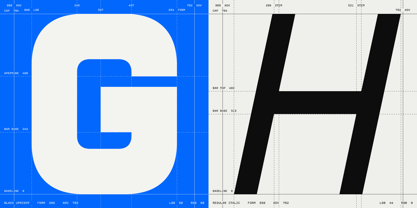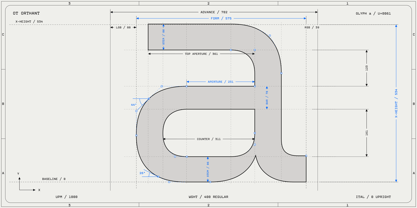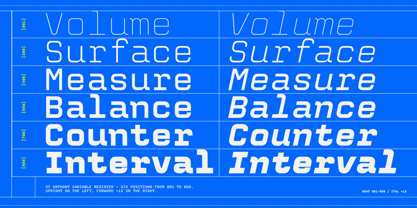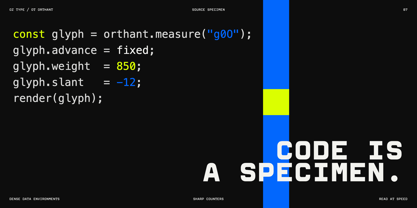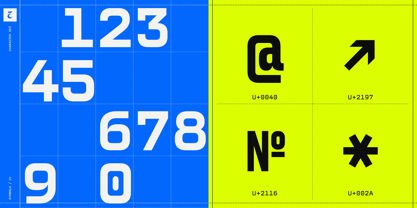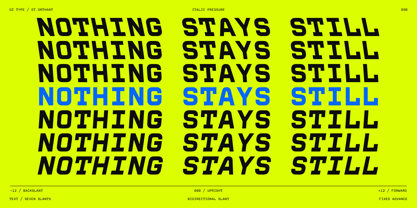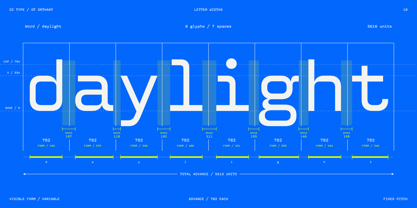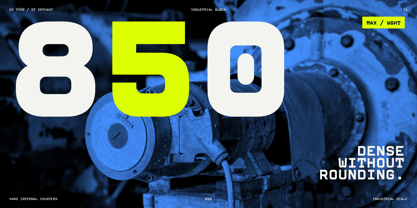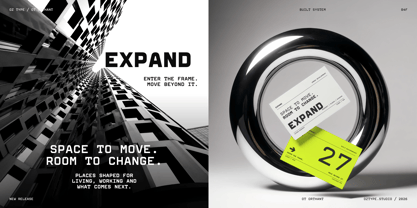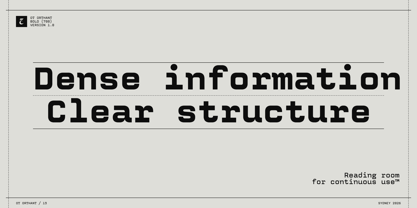
OT Orthant
A família de fontes OT Orthant foi desenhada por Oussama Horchani, Zachary Schwartz e publicada pela OzType.. OT Orthant contém 25 estilos e opções de pacote familiar. Saiba mais sobre esta família
OT Orthant operates as a rigid engineering schematic, compelling natural letterforms into a strict, multi-axis mechanical grid. Constructed on a squarish, fixed-width monospaced skeleton, it features flat-sided ovals, unyielding horizontal terminals, and a distinctly compressed double-story lowercase ‘g’. While many rationalist sans serifs strive to soften their industrial roots, this variable design fully embraces its brutalist logic. Its monolinear structure, available in brittle hairline weights, scales up to a dense, industrial black without rounding off its sharp internal counters or disrupting the fixed pitch. What sets this family apart from conventional technical sans fonts is its bidirectional slant axis. By integrating both a standard forward oblique and a highly disciplined backslant, it creates immediate textural contrast, making it ideal for code or marginalia. This typeface serves as an unsentimental precision instrument, specifically engineered for dense data environments and complex programming interfaces, ensuring absolute structural clarity in every coordinate.